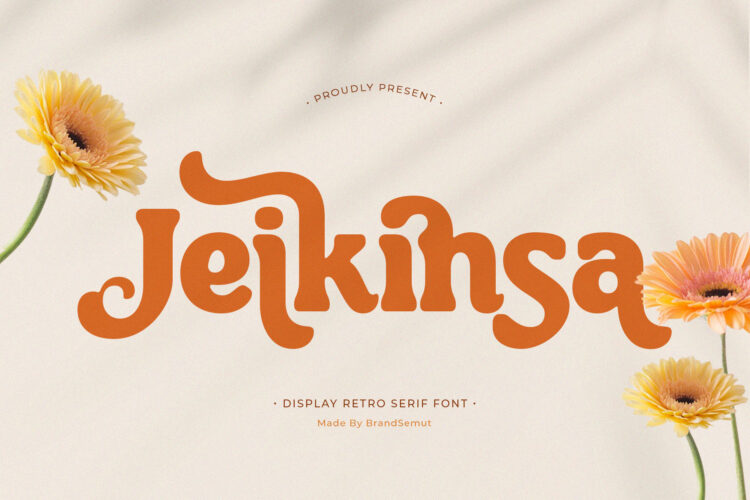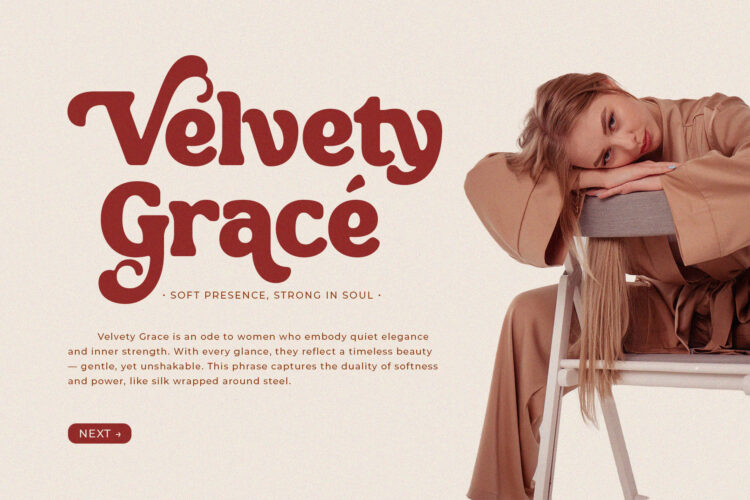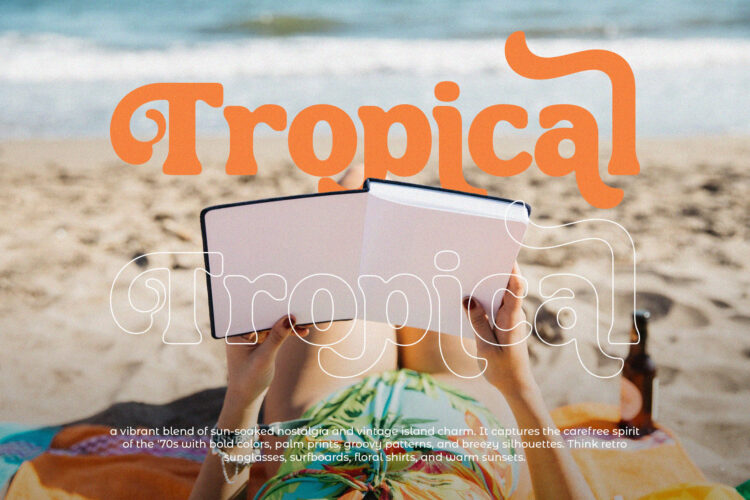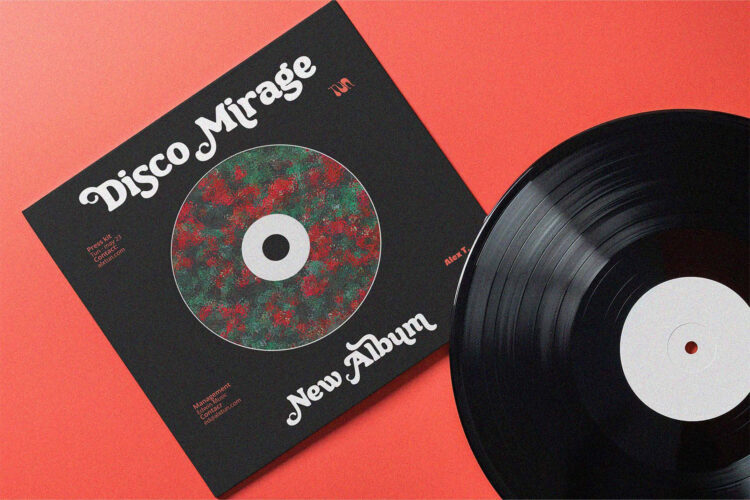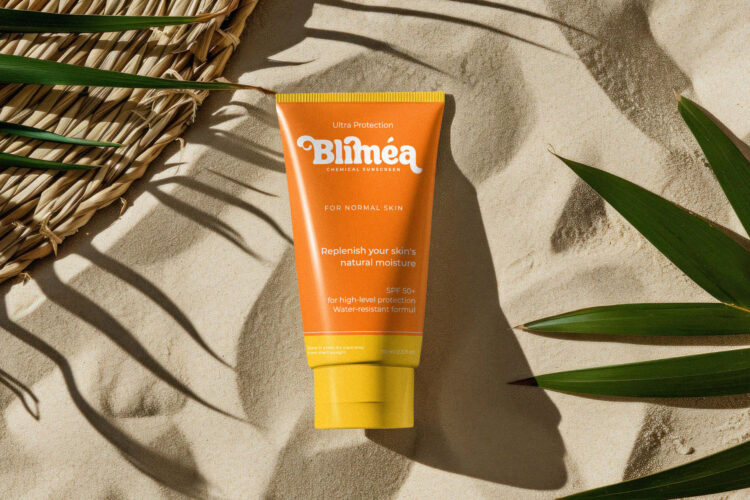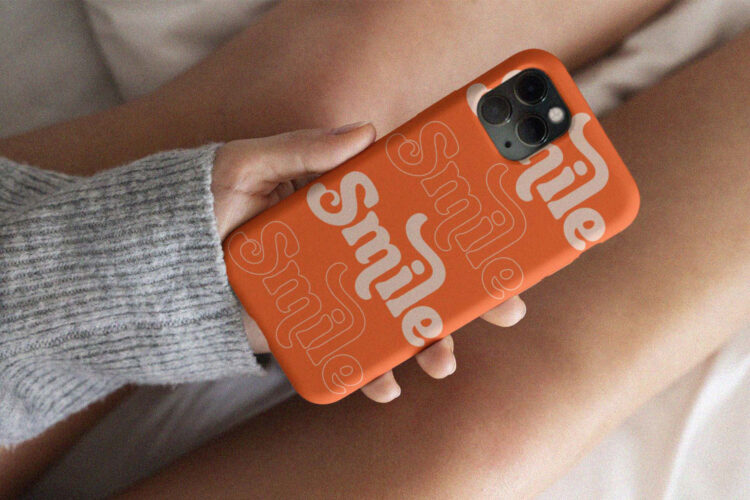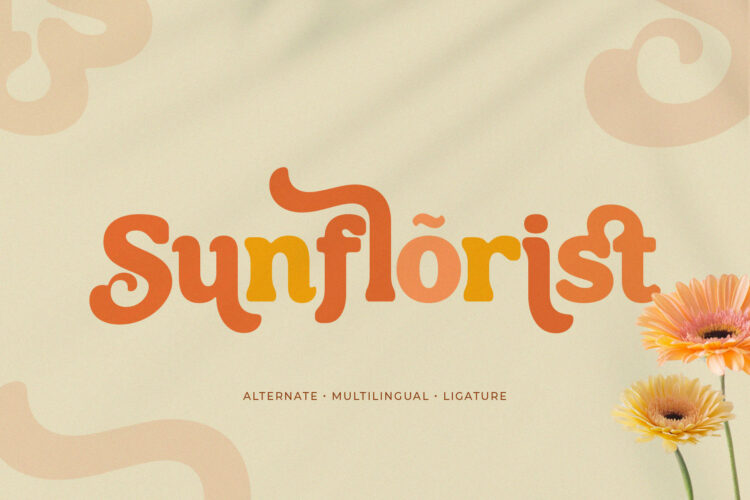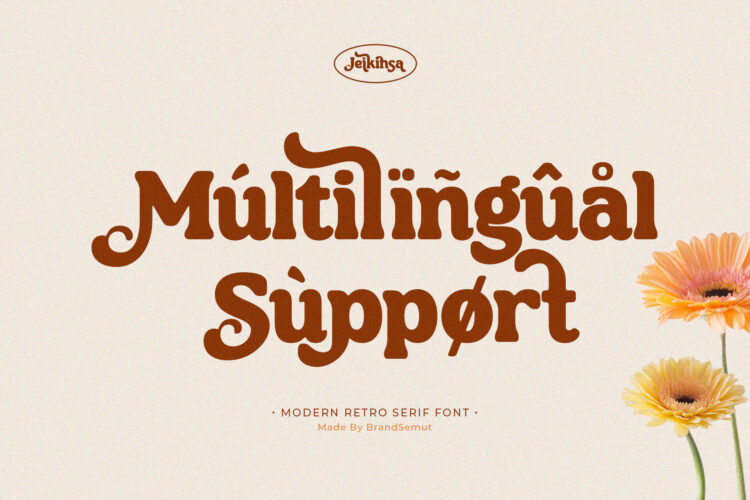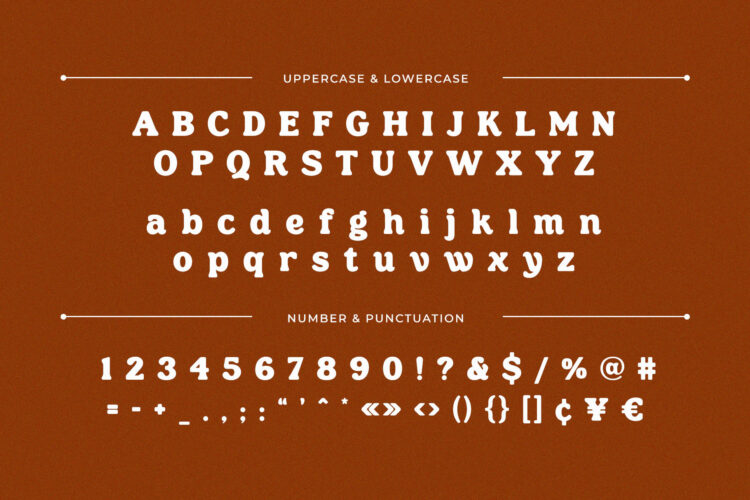
Jeikinsa is a bold and stylish retro display serif font that brings back the nostalgic charm of vintage typography with a modern twist. Featuring smooth curves, unique letterforms, and playful retro vibes, Jeikinsa is perfect for designs that need a touch of personality, warmth, and creativity.
Inspired by 70s retro aesthetics, this typeface blends groovy shapes with bold serif details, making it versatile for both modern and vintage-inspired projects. Jeikinsa is the ideal font for branding, packaging, posters, editorial layouts, and social media graphics. Its distinct character ensures that your design stands out with a bold retro look.
– Complete uppercase & lowercase letters
– Numbers, punctuation & multilingual support
– Unique retro-inspired letterforms with stylish alternates
🎯 Perfect For:
– Retro & Vintage Branding – Perfect for logos, café branding, fashion labels, and creative businesses.
– Packaging Design – Great for food, beverages, cosmetics, and retro-inspired product packaging.
– Posters & Flyers – Add retro flair to event posters, music covers, and editorial layouts.
– Social Media & Ads – Create eye-catching Instagram, TikTok, and Pinterest content.
– Creative Typography Projects – Perfect for merchandise, t-shirts, stationery, and more.
🌟 Why Choose Jeikinsa?
– Retro & Modern Fusion – A display serif font that captures vintage energy with a modern edge.
– Bold & Playful – Distinctive shapes that make your design stand out.
– Professional Quality – Clean, stylish, and versatile for all design needs.
Jeikinsa is more than just a font—it’s a statement piece that transforms your creative projects with bold retro vibes and timeless style
Jeikinsa – Retro Display Serif Font